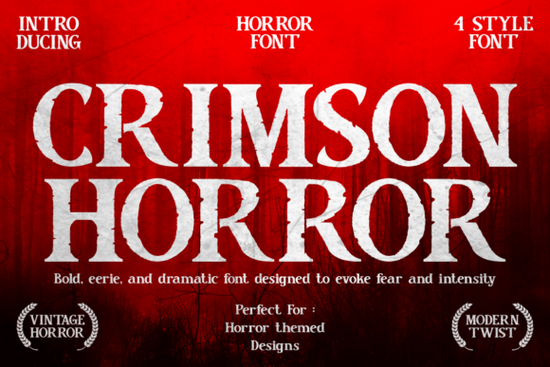
If you are looking for a typeface that instantly sets a dark, unsettling mood, the Crimson Horror Font is a strong choice for your next project. This terrifyingly bold serif is built specifically for horror-themed visuals, blending vintage aesthetics with modern distressing techniques. It gives crafters, print-on-demand sellers, and graphic designers a reliable tool for creating chilling layouts without sacrificing readability.
What makes this typeface stand out for spooky projects?
The design relies on razor-sharp edges and irregular contouring to create an eerie texture. Instead of just looking messy, the distressing is carefully applied to maintain a vintage horror feel. You get four different styles in the package, which means you can mix and match weights for screen titles, packaging labels, or magazine layouts. The four included styles range from standard bold to heavily distressed variations, allowing you to create visual hierarchy without needing to buy multiple separate typefaces. This flexibility is exactly what small business owners need when they want to create a cohesive brand identity for a Halloween collection or a year-round gothic merchandise line.
Where can you actually use a distressed serif?
When working on print-on-demand products like t-shirts, mugs, or posters, you need a font that grabs attention but remains legible. This typeface works beautifully on blood-drenched video game menus, gothic cinematic posters, and spooky apparel. For small businesses running seasonal promotions, having a reliable horror typeface means you can quickly spin up Instagram stories, email headers, and website banners. If you are designing a Halloween event flyer and need to pair it with other display styles, you might consider using classic retro display styles for the secondary text to balance the heavy primary lettering. For crafters making vinyl decals, the clean contours make weeding much easier compared to overly complex scripts.
How does it handle different design pairings?
Pairing heavy, distressed fonts can be tricky. If your main title uses this bold serif, your subtitle might need something simpler. For instance, if you want to keep a thick, heavy aesthetic for a subheading, thick shadowed lettering can work well if kept small. Alternatively, bold outlined lettering provides a nice contrast without competing with the main title's texture. If you are going for a more worn, grunge aesthetic across the whole page, grungy retro typography might be a better fit for your body text, while keeping the main headline sharp and striking. Sometimes, designers prefer sticking to traditional serif display options for a cleaner, more formal look, but when you need pure shock value, a distressed typeface is the way to go.
Is it easy to read on digital screens and print?
A common issue with heavily stylized fonts is that they become unreadable at smaller sizes or on low-resolution screens. This typeface solves that problem by keeping the core letterforms intact. The high-impact stylization does not compromise the basic structure of the letters. Whether you are printing on a matte finish sticker or a glossy phone case, the contrast remains high. Digital designers will also find that it renders cleanly on web pages without causing browser lag or pixelation issues. Print-on-demand sellers will appreciate that the ink coverage looks solid on dark garments, while the distressed edges prevent the design from looking like a flat, boring block of text.
Quick tips for using distressed typefaces in your shop
- Test on dark backgrounds: Always preview your design on black or dark grey to ensure the eerie textures pop correctly.
- Limit your styles: Stick to two styles from the package to keep your layout clean and avoid visual clutter.
- Check vinyl compatibility: If cutting with a Cricut or Silhouette, slightly increase the weld settings to handle the sharp, irregular edges.
- Mind the spacing: Adjust the tracking slightly tighter than usual, as the distressed edges can make letters look further apart.